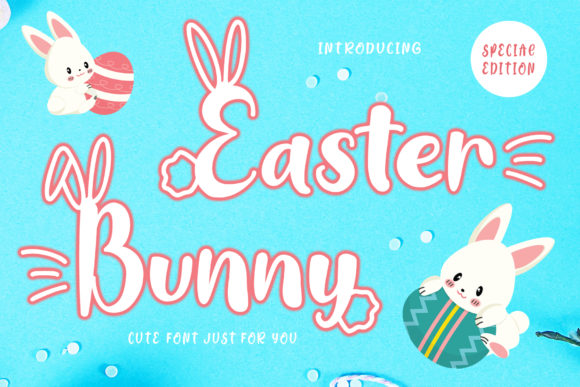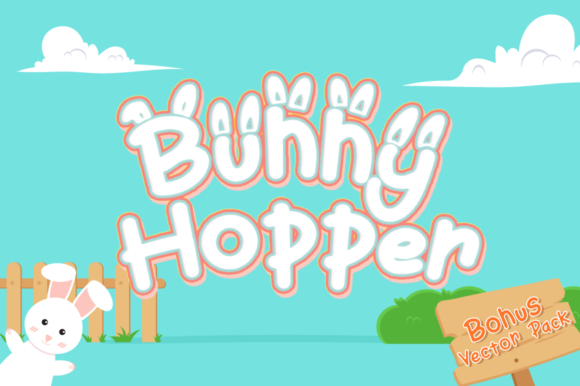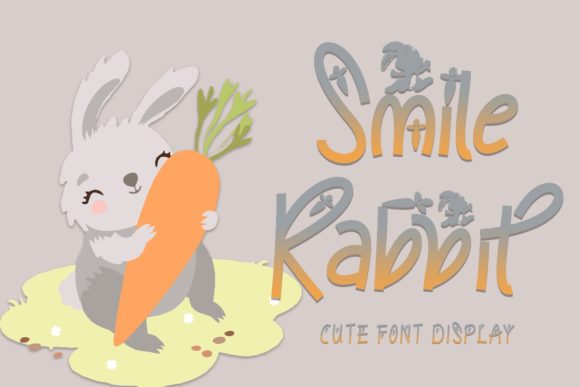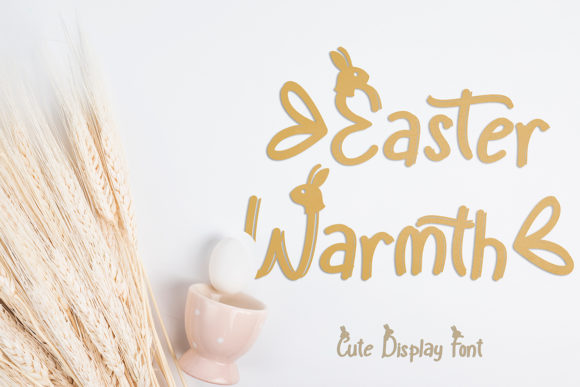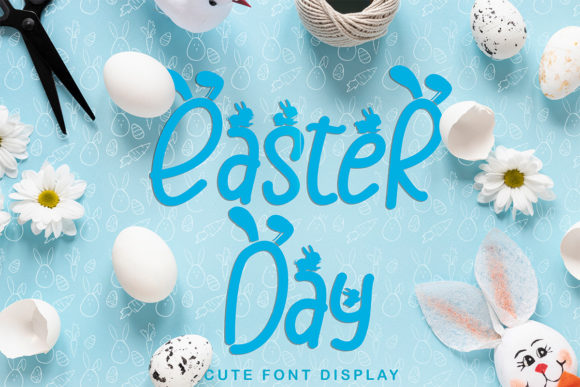
This Easter, make your projects egg-stra special with one of these ten free fonts! Easter is a time for new beginnings, and what better way to start fresh than with some free fonts?
Whether you’re creating an Easter card or a festive invitation, these free Easter fonts can be the perfect finishing touch to make your project truly unique and special.
How to use the Easter fonts
Easter is a time for family and friends and celebrating life. You can use the Easter fonts to add a touch of charm to your Easter cards, gift tags, and even scrapbook pages.
Here are some tips on how to use Easter fonts in your projects:
1. Use Easter-themed fonts to write clues for an Easter egg hunt. You can even use different fonts for different types of eggs (e.g. one font for chocolate eggs and another for plastic eggs).
2. Make “Happy Easter” banners with Easter fonts. Decorate your home or office with bunnies, flowers, and other seasonal decorations to create a cheerful atmosphere.
3. Use Easter fonts on Easter cards and invitations. Your friends and family will love receiving holiday greetings written in festive fonts.
4. Get creative with Easter fonts! There are no rules when it comes to using Easter fonts. So, if you can think of another way to use them, go for it!
5. Have fun! Remember that the purpose of an Easter font is to add a festive touch to your project. Choose a font that makes you happy, and enjoy the process of creating something eggcellent!
10 free Easter fonts that are perfect for everything from invitations to décor
When you’re crafting Easter projects, it’s important to make them egg-stra special! One way to do that is by adding cheerful fonts to your creations.
Here are ten free Easter fonts that will help you create eggcellent Easter projects:
Tips for making the most of Easter fonts
Adding custom fonts to your Easter-themed crafts and decorations can be a great way to personalize the project and make it stand out.
Using Easter fonts in your craft projects also adds a creative and playful element that can bring your designs to life.
Here are a few tips for making the most of Easter fonts:
1. Choose a font that fits the overall tone of your project. For a whimsical look, consider a playful script font. For something more elegant, a classic serif font may be more appropriate.
2. Consider using Easter-themed dingbats or symbols to add visual interest to your project. These can be used to decorate cards, scrapbooks, or other crafts.
3. Use Easter-themed clip arts or Easter-colored borders to make your text stand out. These design elements evoke the feeling of the holiday, adding an extra layer of warmth to the project.
4. Use contrasting colors for your text to make it pop. A light color on a dark background, or vice versa, can make your Easter message stand out.
5. Get creative with your text! Use surprising words or phrases, or incorporate eggs and bunnies into your lettering.
With these tips and a bit of creativity, you can create something eggcellent and unforgettable this Easter season!
Conclusion